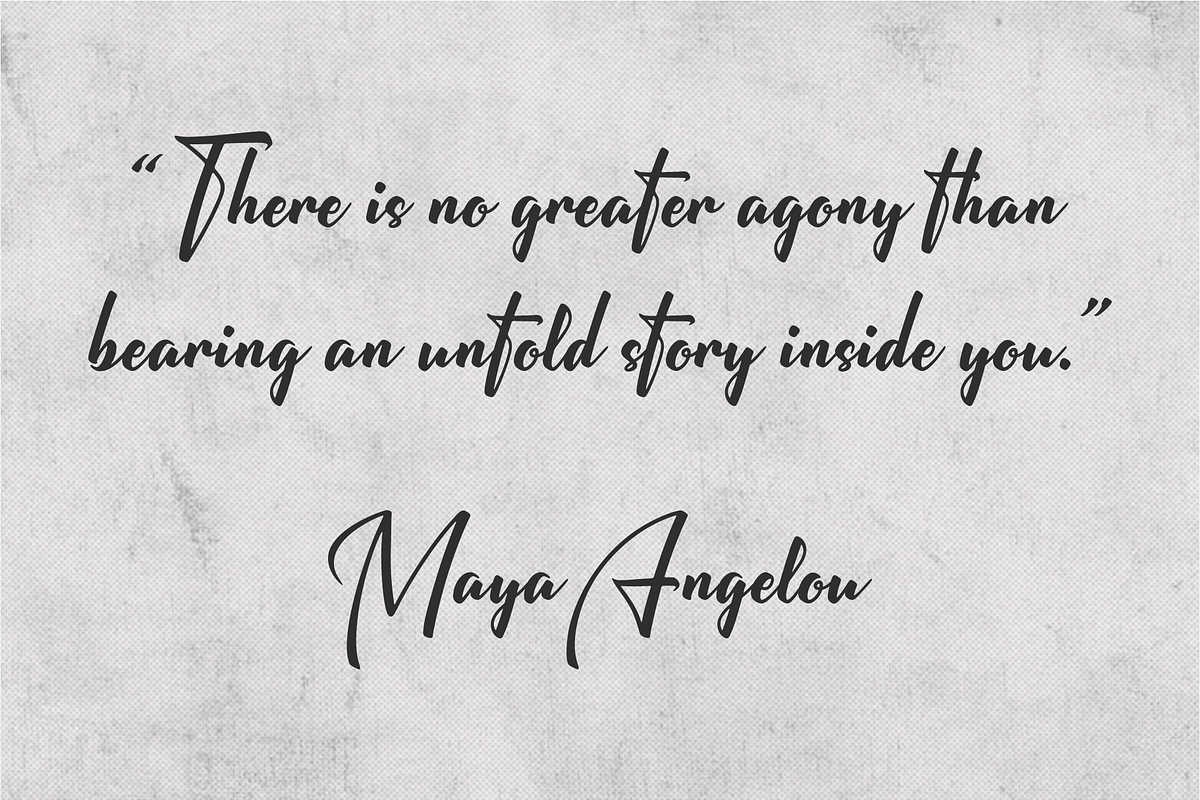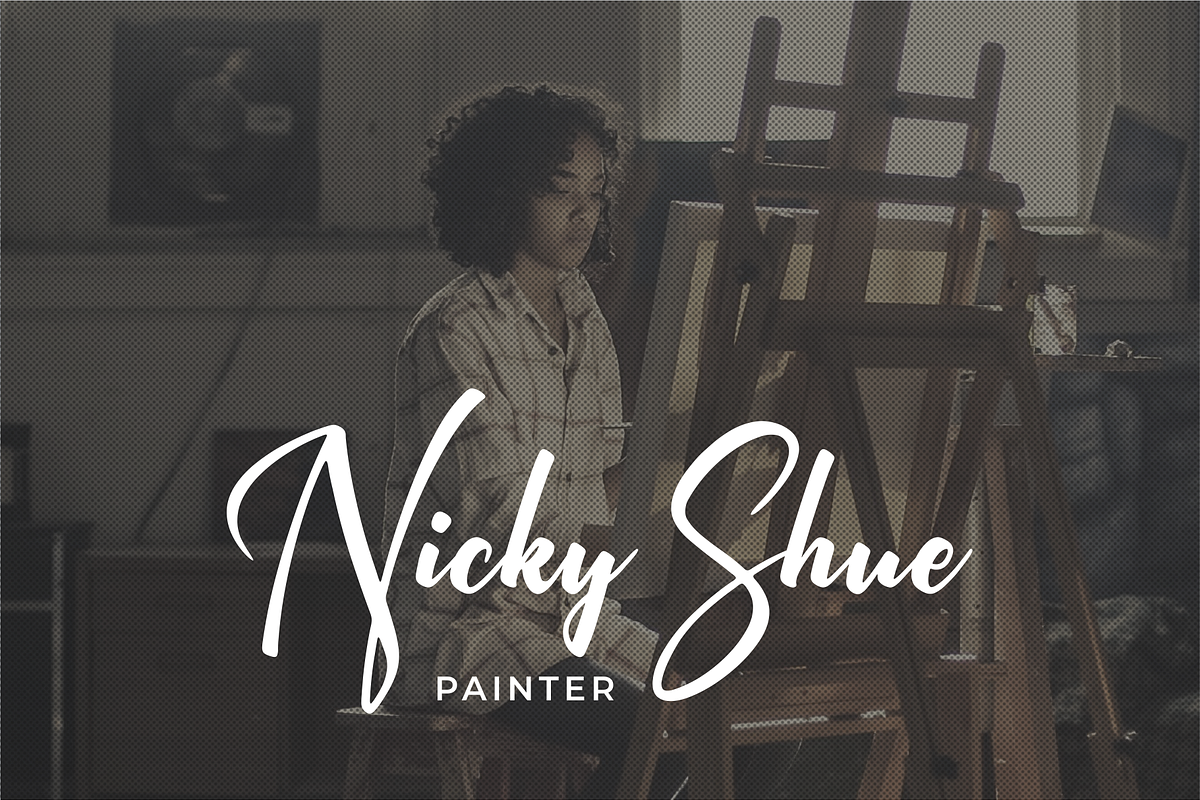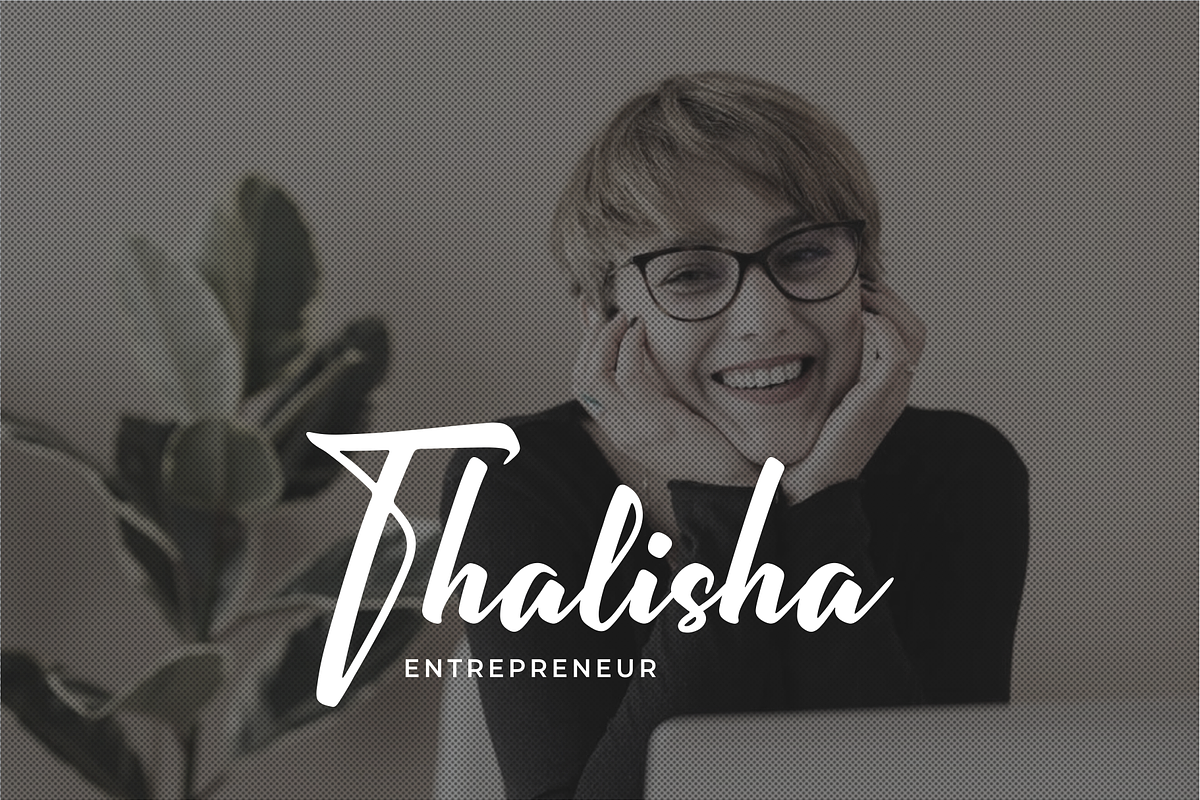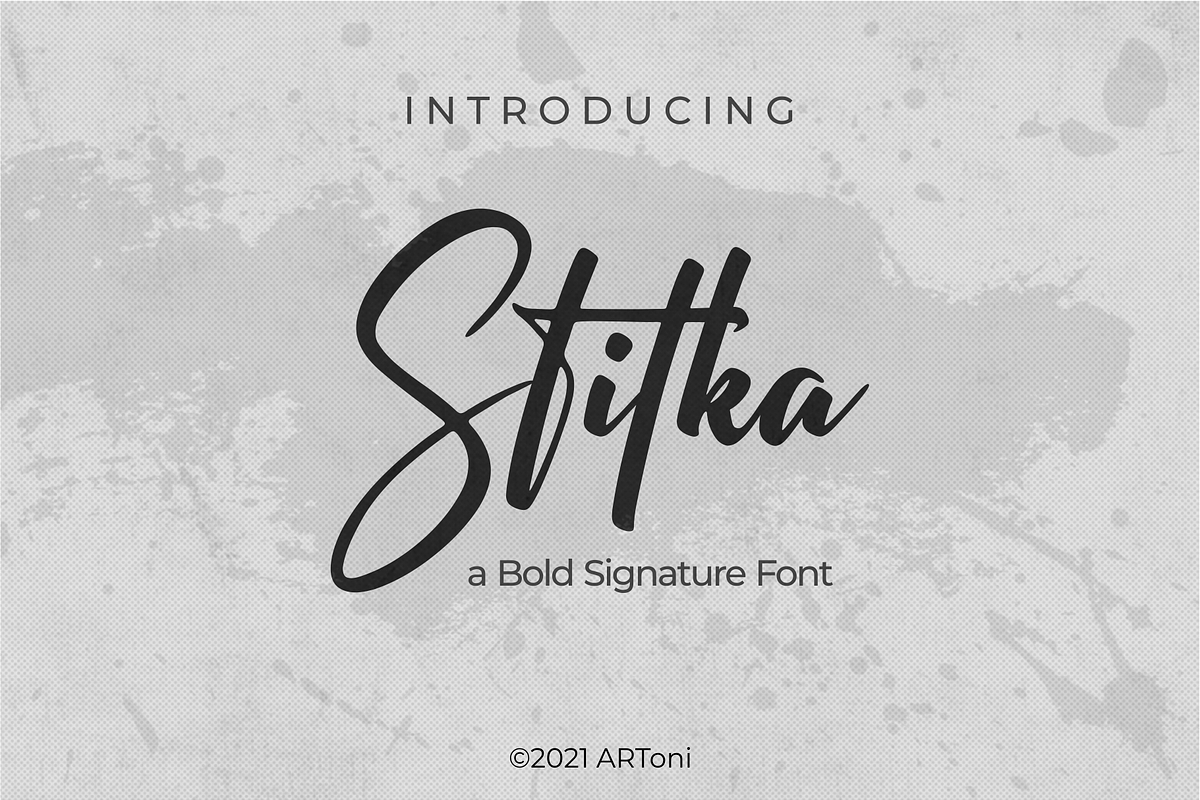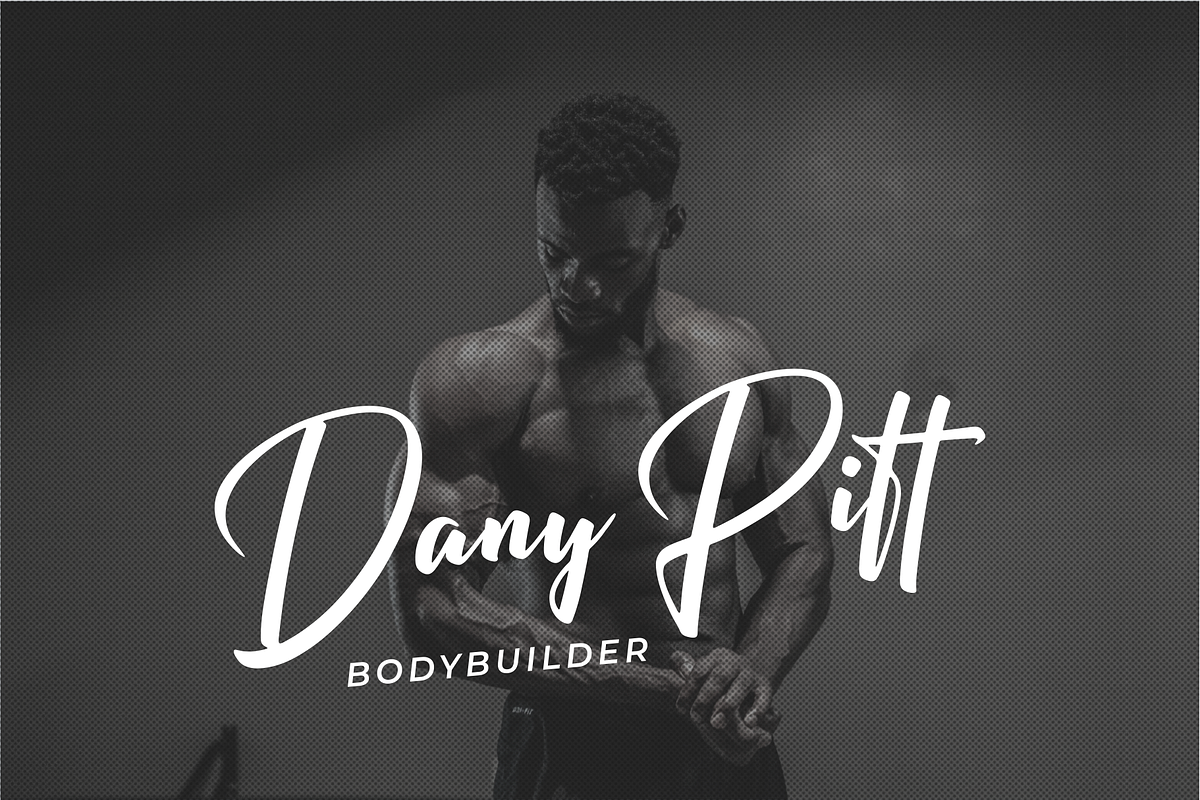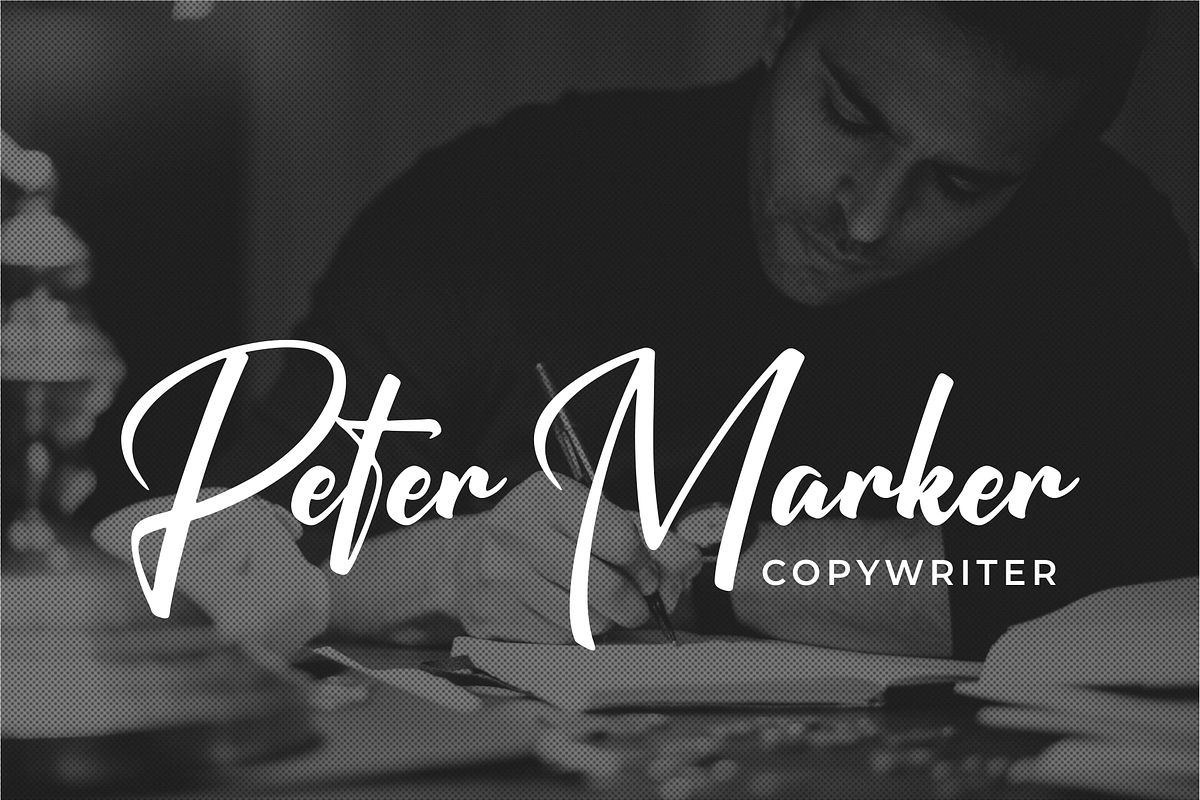
"Stitka" Bold Signature Font
Stitka is a chic, refined script font that emanates sophistication and elegance. Its stylish and ligatures make this font the perfect match for any project.